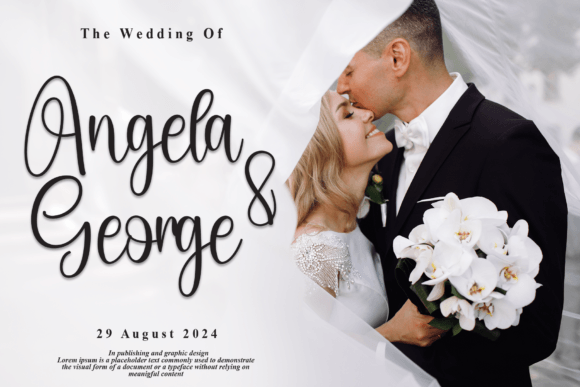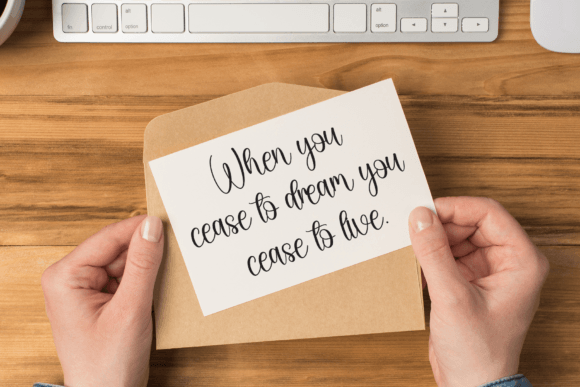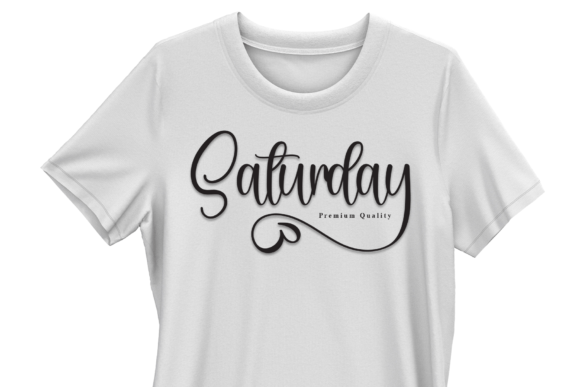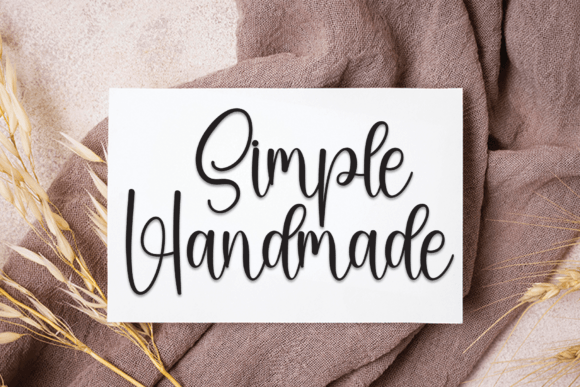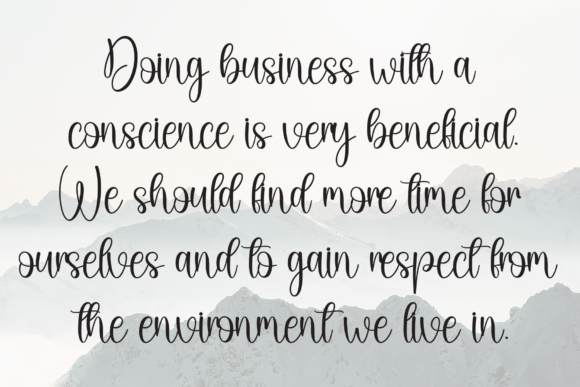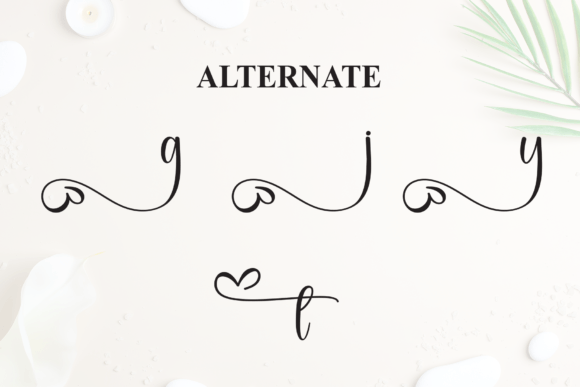
Unleashing the Beauty in Your Designs
As I sat at my desk, staring at a blank piece of paper, I knew exactly what I needed to bring my design to life. A dash of elegance, a pinch of sophistication, and a whole lot of heart. And that’s when I turned to the Beauty Font – a stunning script font that adds a touch of handwritten charm to any project.
This beautiful font is more than just a pretty face; it’s a powerful tool for designers looking to add a personal touch to their work. Whether it’s a wedding invitation, a thank you card, or a business logo, the Beauty Font is sure to make it stand out. Its versatility and timeless appeal make it a valuable addition to any designer’s toolkit.
Key Features of “Beauty Font”
- Font Family: A beautiful and elegant script font, ideal for wedding invitations, branding, and other creative projects.
- Size: The font family includes 6 different weights (Thin, Light, Regular, Medium, Bold, Black) to cater to various design needs.
- Unique Characteristics: Each weight of the font has a unique personality, making it perfect for creating visual interest and hierarchy in designs.
Beauty Font Review
When I first laid eyes on Beauty Font, I was immediately drawn in by its elegant and sophisticated aesthetic ✨. The font is perfect for any project that requires a touch of luxury and refinement, from high-end fashion brands to upscale interior design.
Here are some of the features that really stand out:
- ✨ Beautifully crafted letterforms that exude elegance and sophistication
- ✨ Wide range of font weights and styles to suit any design need
- ✨ Excellent legibility, even at small font sizes
However, there are a few limitations that prevented Beauty Font from being a complete knockout:
- ⚠️ Limited language support, which may be a concern for international projects
- ⚠️ Some users may find the font to be too ornate or over-the-top, depending on the design context
Overall, I’d say Beauty Font is a solid choice for any designer looking to add a touch of luxury to their project. While it may not be perfect, its strengths far outweigh its weaknesses, and I’d definitely consider using it again in the future.
Tips for Getting the Most Out of Beauty Font
Here are some tips to get the most out of Beauty Font:
- Pair Beauty Font with other fonts to create a unique and stylish look.
- Use Beauty Font for headings and titles to add a touch of elegance.